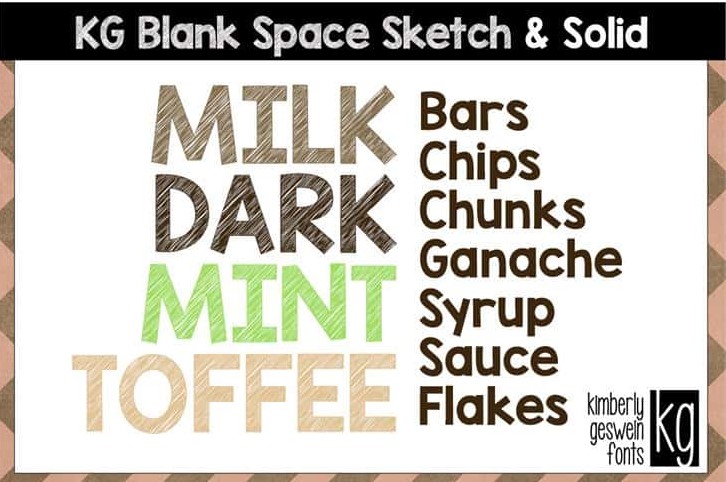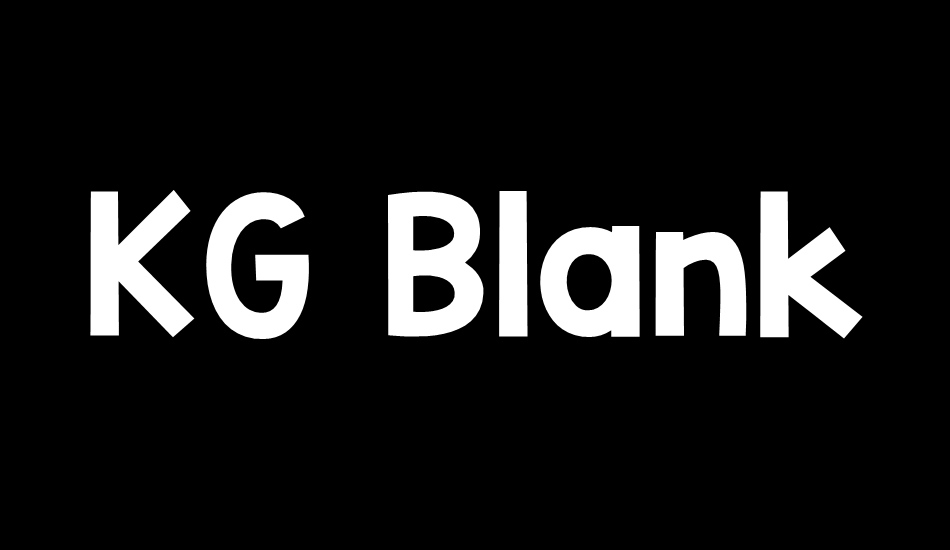
Kg Blank Space Solid Font
Kg Blank Space Solid Font comes under the category of the primary fonts. This is one of the most beautiful fonts and also known as kg miss kindergarten font. Together with business organization employer commercial enterprise corporation emblems and metallic fabricated lettering. That can be a similarly adorable and specific type in sans serif typeface circle of relatives.
The style of this font can be very new and elegant. The satisfactory’s fonts are completed, specifically, calligraphy patterns and designs of several works of artwork. Kg Blank Space Solid Font Free You could use this font in all the portray works and top-notch elegant works which might be very vital to you on your strolling placement and one-of-a-type designing opportunities that you similar to the child font. This font may be completed in all precise responsibilities of designing similarly to calligraphy.